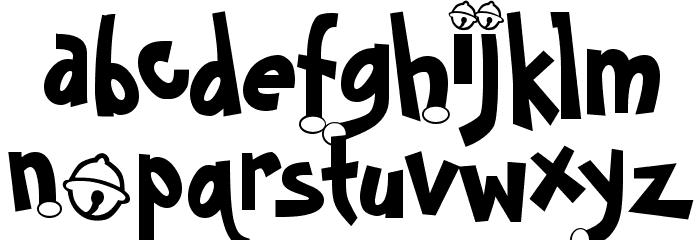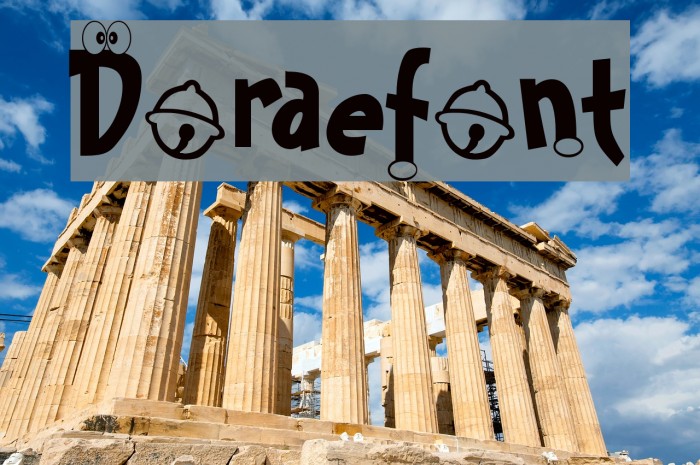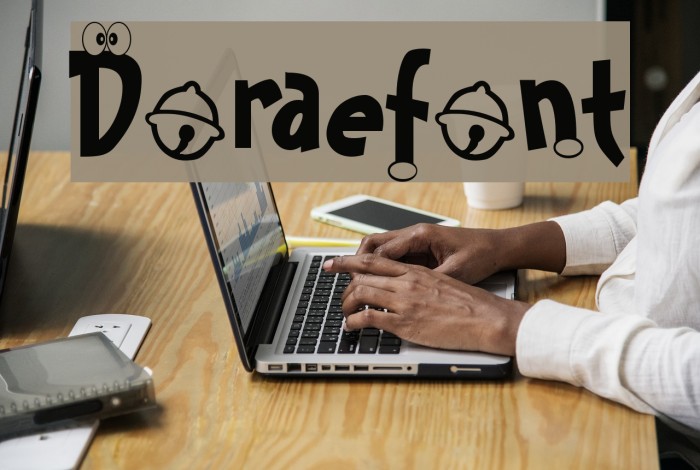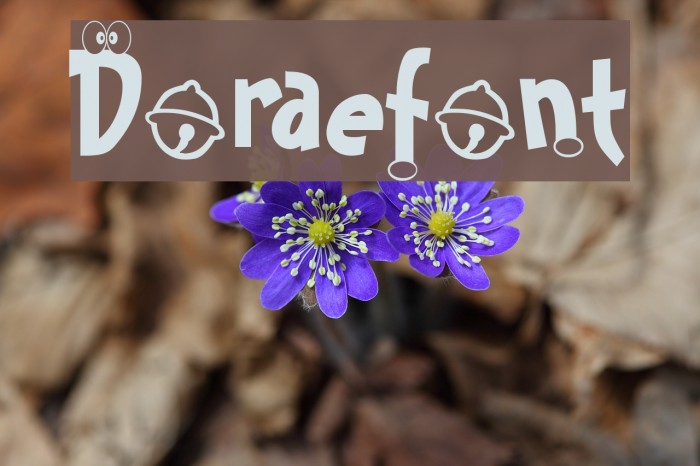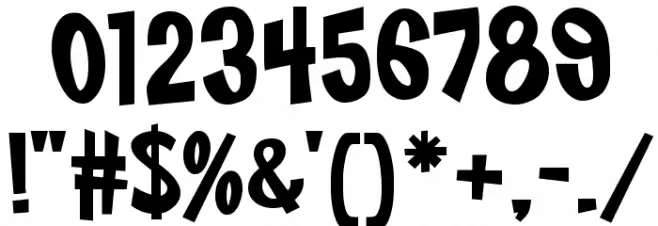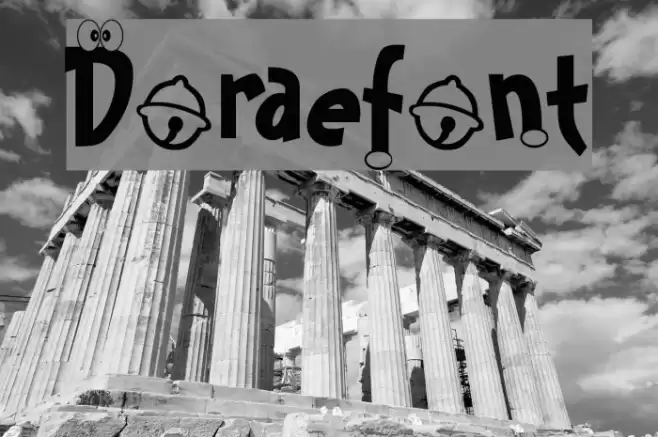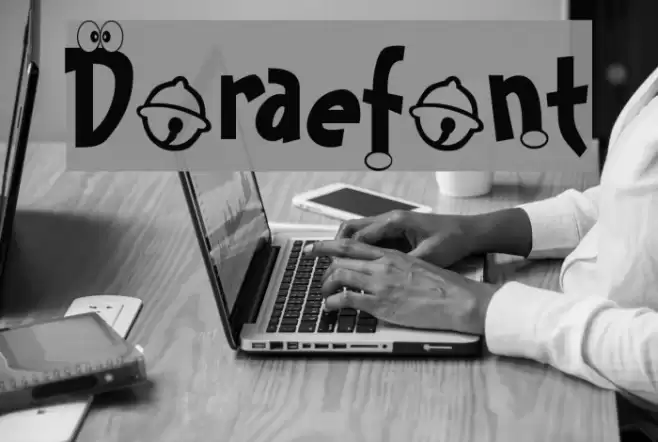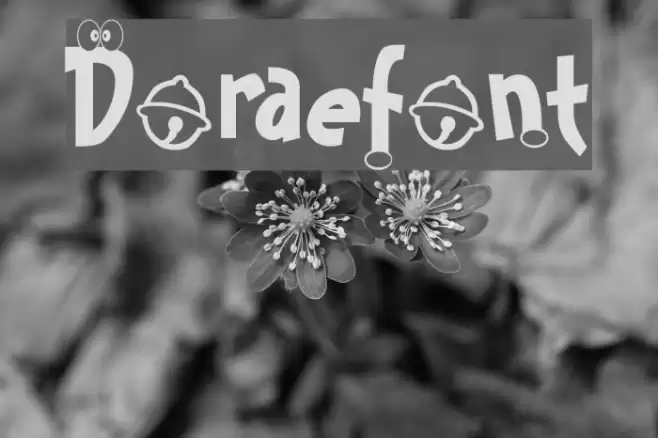
Doraefont Font
This playful and whimsical font features bold, cartoon-like characters with a lively and energetic appearance. The uppercase and lowercase letters are designed with exaggerated curves and playful elements, such as eyes and hats, adding a sense of fun and creativity. The numbers and special characters maintain the same playful style, making the font suitable for projects that require a lighthearted and engaging tone. The overall design is bold and eye-catching, perfect for capturing attention in various creative applications.
A playful, cartoon-like font with bold, whimsical characters.
- Proposed Projects: Ideal for children's books, comic strips, playful branding, and party invitations.
- Overall Style: Playful, Whimsical